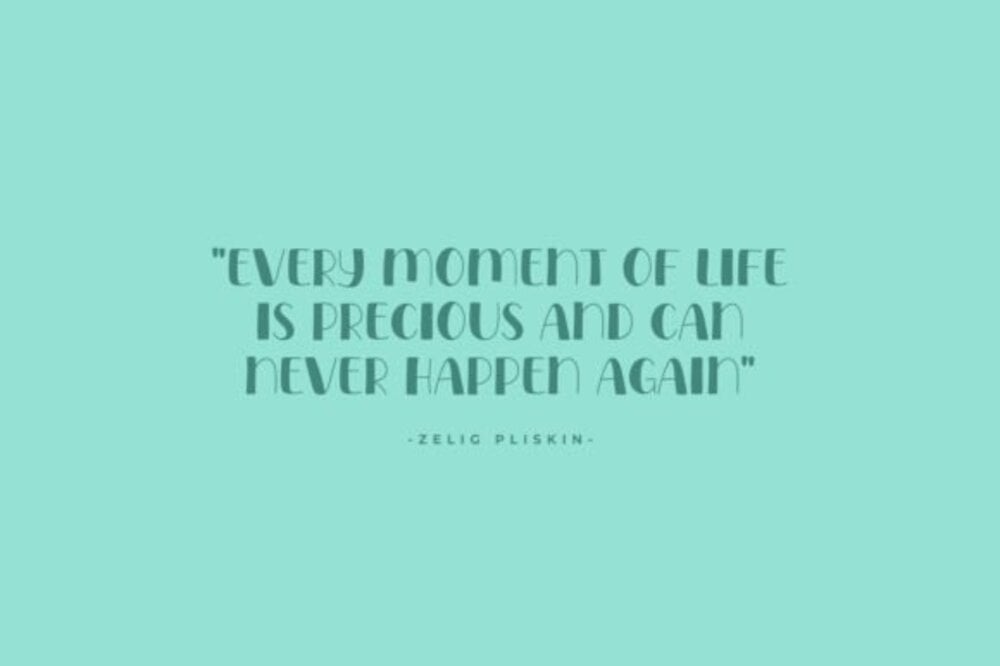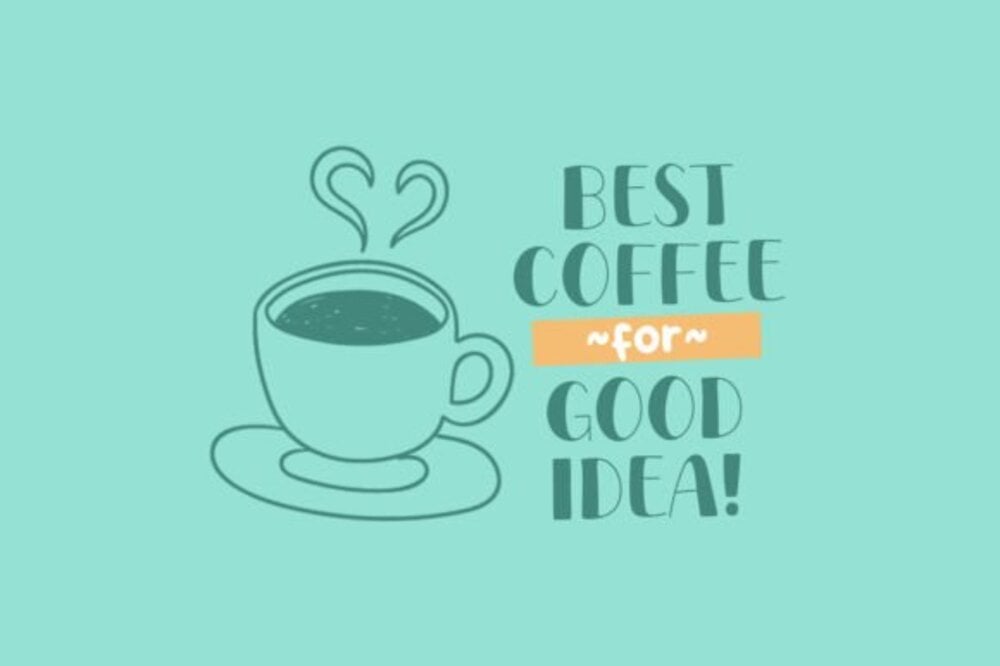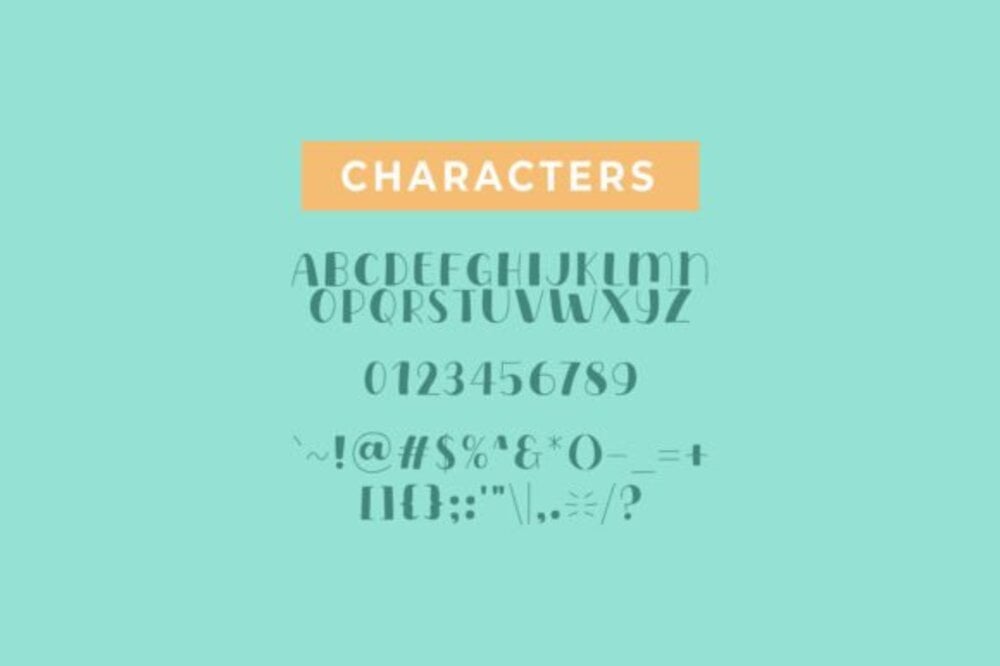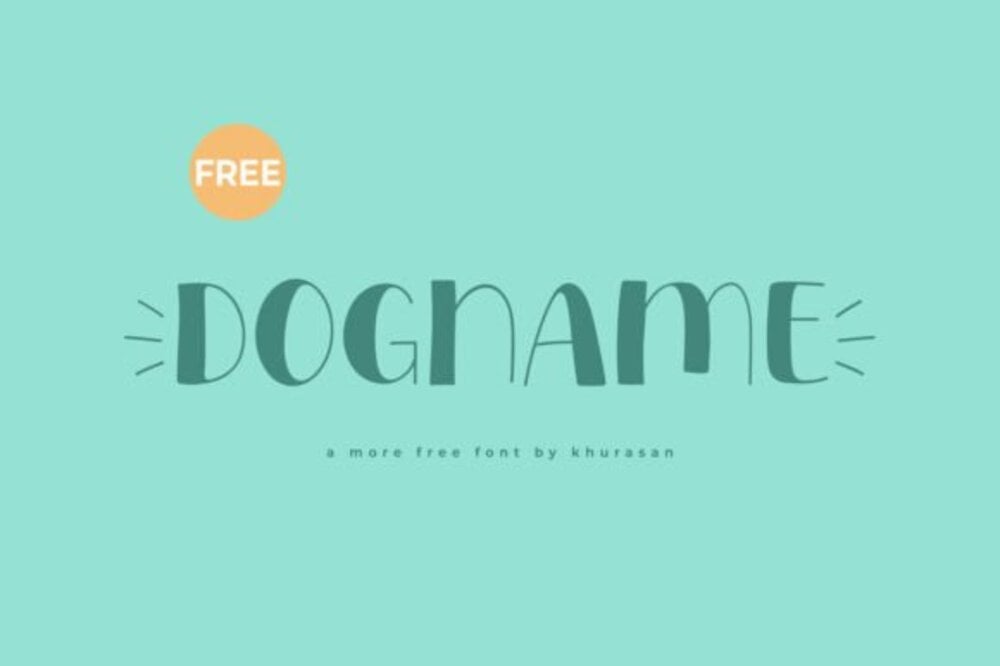
Dogname Font
Dogname font is a playful and friendly typeface with a touch of whimsy, inspired by the unconditional joy of our canine companions. Featuring rounded edges and casual, handwritten vibes, it’s perfect for pet-themed designs, children’s projects, or fun branding. Its approachable style adds charm and personality to any layout, while maintaining clear readability. Dogname font is a tail-wagging choice for projects that need warmth and lightheartedness!